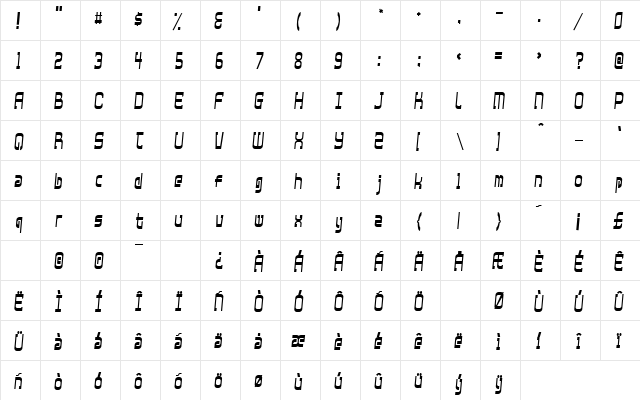
Xtraordinary Regular
Design Context for Xtraordinary Typeface
Xtraordinary takes a measured approach to typography — its balanced proportions and neutral character make it a reliable workhorse for both digital and print work.
Pro Tip: Pair Xtraordinary with a font of contrasting weight or personality to build a more expressive typographic hierarchy.